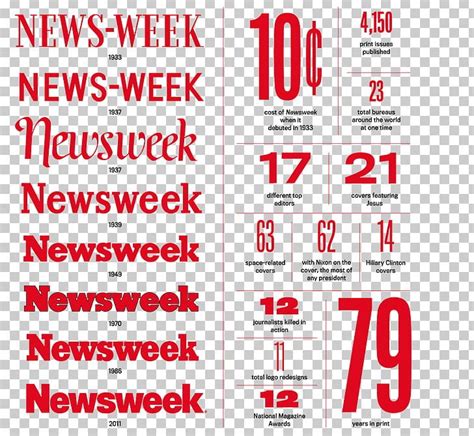
Unveiling Newsweek's Iconic Logo Font
Hey there, design enthusiasts and media junkies! Have you ever paused to think about what makes a brand instantly recognizable? Beyond the catchy slogans and memorable imagery, there’s often an unsung hero: the font . Today, we’re diving deep into the fascinating world of Newsweek’s iconic logo font , exploring its history, its characteristics, and why it plays such a crucial role in establishing the magazine’s identity and enduring legacy. For decades, Newsweek has been a beacon of journalistic integrity, delivering insightful analysis and breaking news to millions of readers. But what about the visual foundation of that trust? It all starts with that powerful, authoritative logotype that greets you on every cover and digital platform. This isn’t just about picking a random typeface; it’s a carefully considered design choice that communicates credibility, seriousness, and timelessness. Understanding the nuances of typography in branding , especially for a publication as storied as Newsweek, offers incredible insights into how visual elements can reinforce core values. We’ll explore how this specific Newsweek logo font contributes to its robust brand identity, making it a staple in the media landscape. So, buckle up, guys, because we’re about to uncover the subtle yet significant power behind one of the most recognizable media logos in the world, dissecting how its unique typographic presence has helped shape its image for generations of readers and maintain its powerful influence in an ever-evolving news cycle. This journey into Newsweek’s font isn’t just for designers; it’s for anyone who appreciates the meticulous craft behind enduring brands and the silent story that typefaces tell about the organizations they represent, reinforcing their message of quality and authenticity through a consistent and impactful visual language. It’s truly amazing how a few letters can carry so much weight and history!
The Power of Typography in Branding
Let’s be real, guys, typography isn’t just about making words look pretty; it’s a fundamental pillar of brand identity that often goes unnoticed by the casual observer but profoundly impacts perception. For a venerable institution like Newsweek, its logo font is far more than mere ornamentation—it’s a silent communicator, conveying everything from trustworthiness to authority, and setting the tone for every piece of content that follows. Think about it: specific fonts evoke different emotions and brand values, helping companies differentiate themselves in a crowded marketplace. A playful, handwritten font might suit a children’s toy company, while a bold, sans-serif typeface like the one seen in the Newsweek logo font inherently screams seriousness, reliability, and journalistic rigor. This isn’t accidental; every curve, every stroke, and every spacing decision is meticulously crafted to resonate with the target audience and reinforce the brand’s mission. The consistency with which a brand uses its chosen typography across all touchpoints—from its main logo to its headlines, and even body text—builds familiarity and trust. When you see the distinct Newsweek logo font , you instantly recognize the brand, even without any other visual cues. This instant recognition is invaluable, creating a strong mental association between the typeface and the quality of information it represents. In the digital age, where attention spans are fleeting, a powerful and consistent typographic identity can be the difference between standing out and getting lost in the noise. It helps to forge an unbreakable bond with readers, assuring them of the brand’s enduring promise. The choices Newsweek made regarding its logo font speak volumes about its commitment to gravitas and factual reporting, ensuring its visual presence aligns perfectly with its editorial mission, solidifying its place as a trusted news source and exemplifying the critical role that thoughtful typographic design plays in building and sustaining a powerful brand image in the competitive media landscape, providing readers with an immediate sense of familiarity and unwavering confidence in the content that lies within its pages and digital platforms, thereby reinforcing its long-standing reputation for authoritative journalism.
A Deep Dive into the Newsweek Logo Font
Alright, let’s get down to the nitty-gritty and analyze the very specific characteristics that make the Newsweek logo font so memorable and effective. While the exact logotype for Newsweek is a custom-designed piece of lettering, its stylistic roots are deeply embedded in the tradition of strong, authoritative sans-serif typefaces. Many designers and typography enthusiasts often associate its robust, no-nonsense aesthetic with classics like Franklin Gothic or Trade Gothic . These typefaces are renowned for their powerful presence, excellent legibility, and timeless appeal, qualities that are absolutely essential for a news publication that prides itself on clarity and gravitas. The Newsweek logo font is distinctly sans-serif, meaning it lacks the small decorative strokes, or